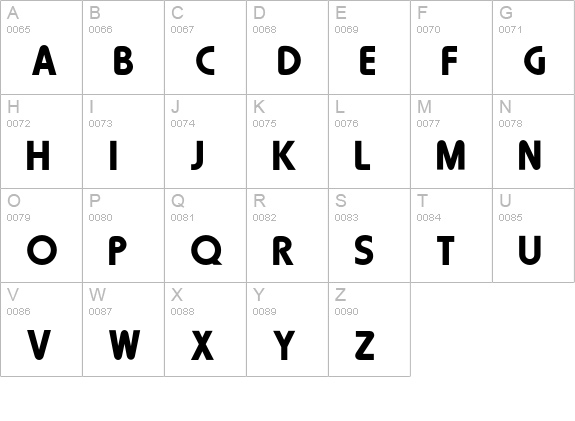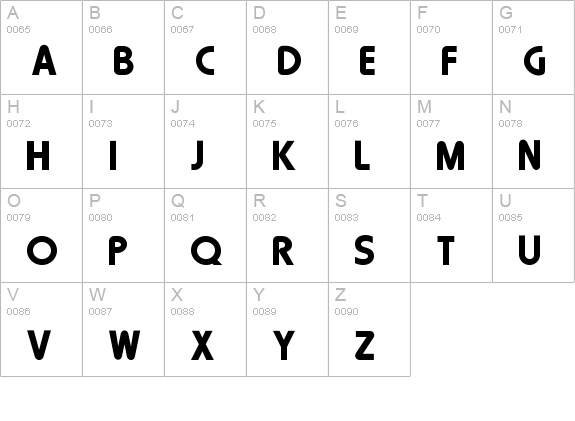
HarryFatt Font Details
Introducing HarryFatt, a captivating and bold font that commands attention with its unique and distinctive style. This font is perfect for those who want to make a statement and stand out from the crowd. With its strong and powerful letterforms, HarryFatt exudes confidence and strength. But what sets HarryFatt apart from other fonts is not only its striking design, but also the fact that it is completely free. Yes, you read that right! HarryFatt is freely available to download at FontsMarket.com, allowing you to add this remarkable font to your collection without breaking the bank. Whether you're designing a logo, creating eye-catching headlines, or simply looking to add a touch of personality to your typography, HarryFatt is the perfect choice. Its bold and commanding presence will instantly grab attention and leave a lasting impression. With HarryFatt, you have the freedom to express yourself creatively and confidently. Its versatile nature allows it to be used in a variety of design projects, whether it's for print or digital media. From posters to websites, HarryFatt will make your message loud and clear. So why wait? Don't miss out on the opportunity to enhance your designs with the captivating and free HarryFatt font. Download it now from FontsMarket.com and let your creativity soar to new heights. Embrace the power of HarryFatt and make a lasting impression with every letter.